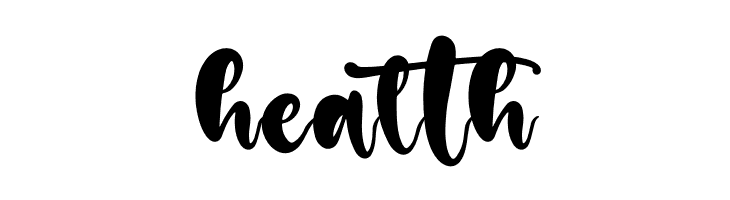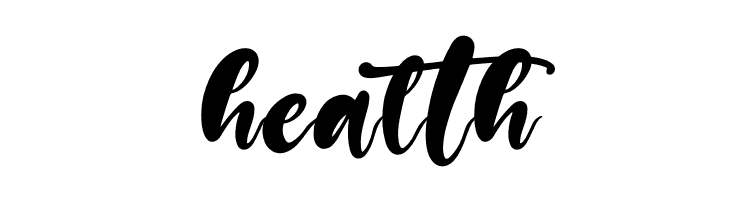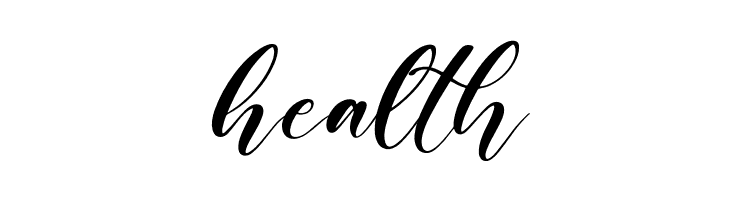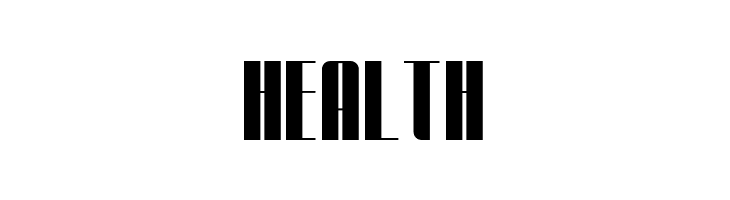
Astronomus Font
A bold, geometric font with a futuristic and technical style.
Wavy Lines Font
A playful, wavy line font with a hand-drawn, organic style.
Calinastiya Demo Font
A decorative script font with elegant loops and swirls.
Patria Vista Font
A bold, brush-style script font with dynamic, cursive strokes.
Slenco-Black Font
A bold, modern sans-serif font with clean lines and uniform strokes.
Raccosetta Demo Font
A sleek, modern font with clean lines and slight stroke contrast.
Malegroth-Regular Font
A bold blackletter font with sharp, angular lines and a medieval aesthetic.
Shayfinton-Regular Font
A playful, whimsical font with tall, narrow letters and gentle curves.
Morington Demo Font
A bold, modern font with strong vertical lines and a slightly condensed style.
Strandall Demo Font
A modern, decorative font with tall, narrow letterforms and subtle curves.
Ringtrack Demo Font
A bold, expressive script font with fluid, cursive letterforms and elegant flourishes.
Gampolins-Demo Font
A bold, playful font with thick, rounded strokes and high contrast, perfect for creative projects.
Anisver Font
Sundylle Regular Font
A playful, modern font with clean, rounded characters and consistent stroke width.
Authorized Signature Regular Font
A sophisticated script font with a handwritten signature style.
Chowgant Signature Font
An elegant, cursive font with fluid, connected letters and varying line thickness.
Bundhers Regular Font
A bold, playful handwritten font with smooth, rounded characters.
Jalompo Regular Font
A bold, angular font with a modern, geometric style.
Blackened Script Demo Font
A bold, dynamic script font with flowing, interconnected strokes.
Chunky Wally Font